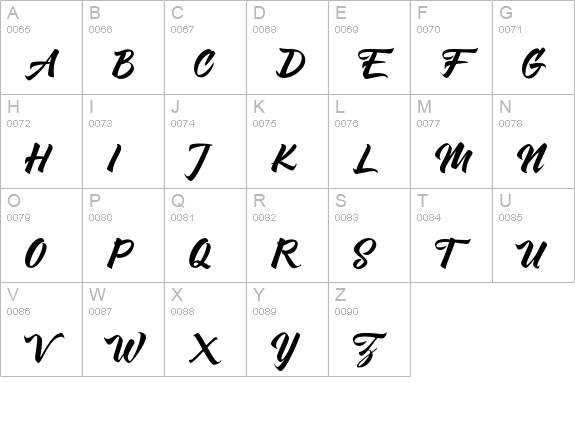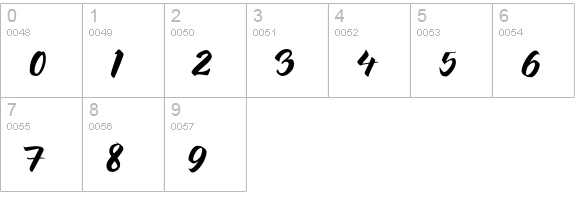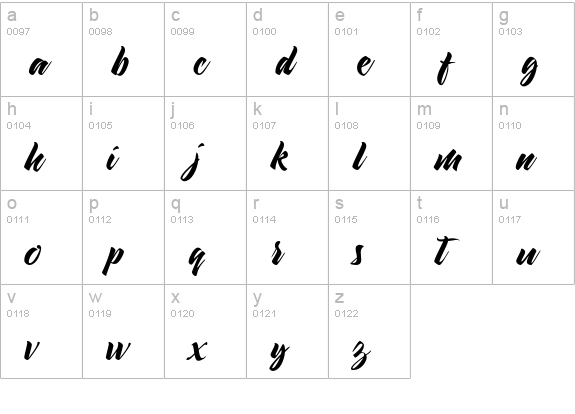
Maulina Font Details
Introducing Maulina font, a beautifully crafted typeface that exudes elegance and sophistication. With its delicate strokes and modern design, Maulina is perfect for adding a touch of luxury to your projects. Whether you're designing invitations, logos, or branding materials, this versatile font is sure to make a statement. What sets Maulina font apart is not only its aesthetic appeal but also its accessibility. This premium font is available for free download exclusively at FontsMarket.com, making it easy for designers and creatives to access high-quality typography without breaking the bank. With Maulina font, you can elevate your designs and create stunning visuals that leave a lasting impression. Embrace the beauty of Maulina font and unleash your creativity today!